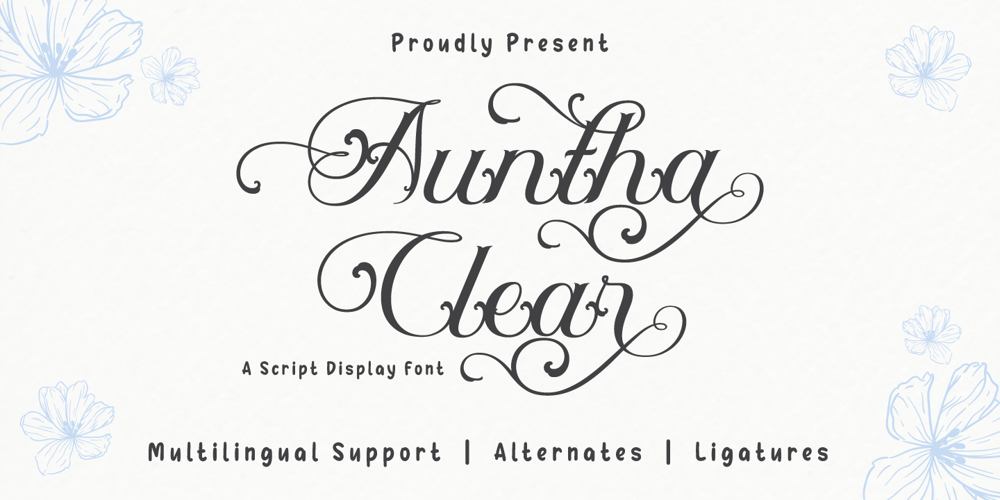
Auntha Clear Font Family was designed by Rozikan and published by Twinletter. Auntha Clear contains 1 styles and family package options. Auntha Clear is an artistic touch that translates into stunning Script typography. This font is your constant companion for projects that need a pretty, modern, and playful touch.What’s Included : File font All glyphs Iso Latin 1 Alternate, Ligature Simple installations PUA Encoded Characters – Fully accessible without additional design software. Fonts include Multilingual support